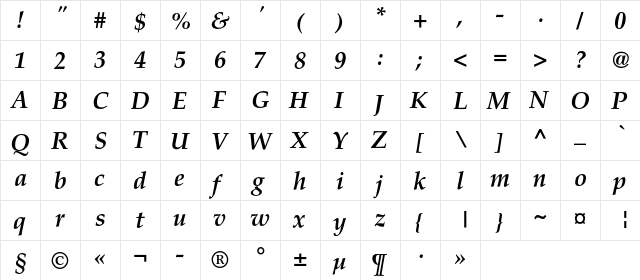
AGPalatialC Bold Italic Font Preview
Design Context for AGPalatialC Typeface
AGPalatialC takes a measured approach to typography — its balanced proportions and neutral character make it a reliable workhorse for both digital and print work. The dynamic lean of this cut emphasises speed and emphasis in any layout. Its bold stroke weight gives it real presence on the page.
Pro Tip: Try AGPalatialC for annotation and caption copy alongside an upright companion — the contrast in angle creates a dynamic but ordered typographic system.